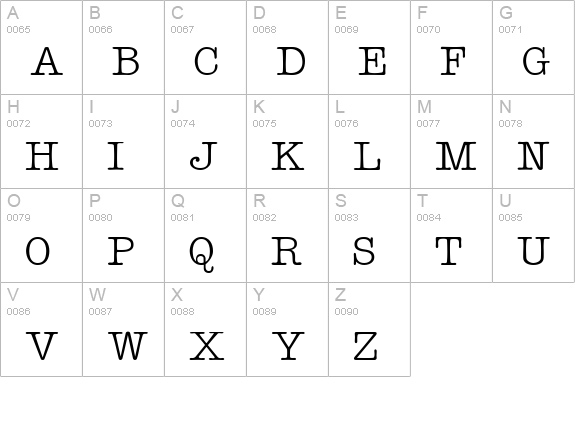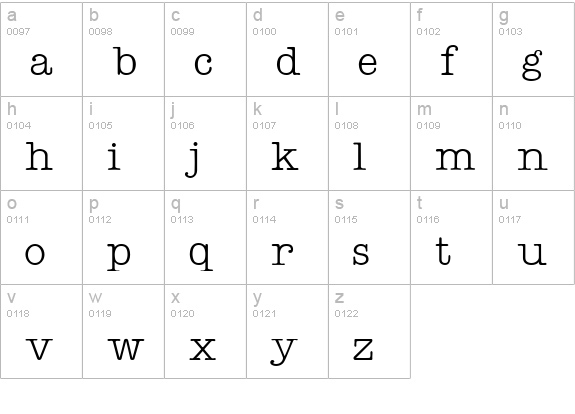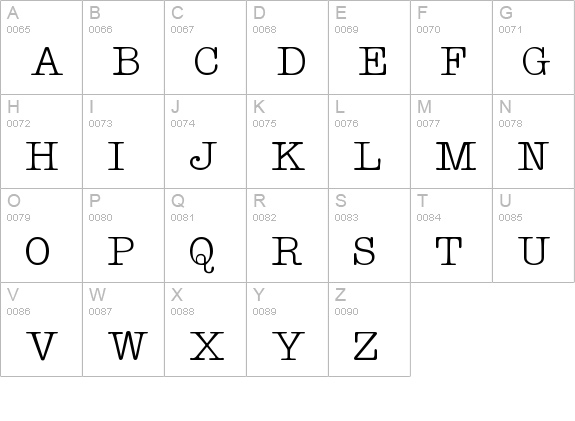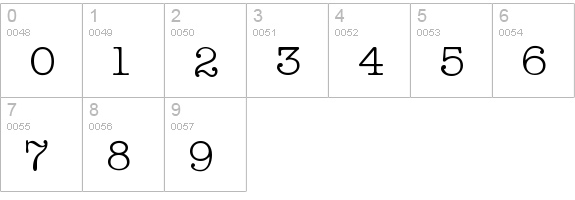
Keyboard Display SSi Font Details
Keyboard Display SSi is a captivating and versatile font that is perfect for adding a touch of elegance and sophistication to your designs. With its unique combination of sleek lines and bold curves, this font is sure to make a statement. Whether you are designing a logo, creating titles for a website, or designing promotional materials, Keyboard Display SSi will bring your designs to life. What sets Keyboard Display SSi apart from other fonts is its ability to seamlessly blend modernity with classic design elements. The clean and crisp letterforms are perfectly balanced, creating a harmonious and visually pleasing aesthetic. This font is ideal for both digital and print designs, ensuring that your message is conveyed with clarity and style. One of the best things about Keyboard Display SSi is that it is freely available to download at FontsMarket.com. This means that you can use this font for personal and commercial projects without having to worry about licensing fees. Whether you are a professional designer or a hobbyist, this font gives you the creative freedom to bring your vision to life without any limitations. Keyboard Display SSi is compatible with a wide range of design software and platforms, making it easy to incorporate into your existing workflow. The font is available in multiple weights and styles, allowing you to choose the perfect variation for your specific project. From thin and delicate to bold and impactful, Keyboard Display SSi has it all. So why wait? Download Keyboard Display SSi for free at FontsMarket.com and start adding a touch of sophistication to your designs today. Whether you are creating a logo, designing a website, or working on a branding project, this font is sure to elevate your designs to the next level. Get ready to make a lasting impression with Keyboard Display SSi.